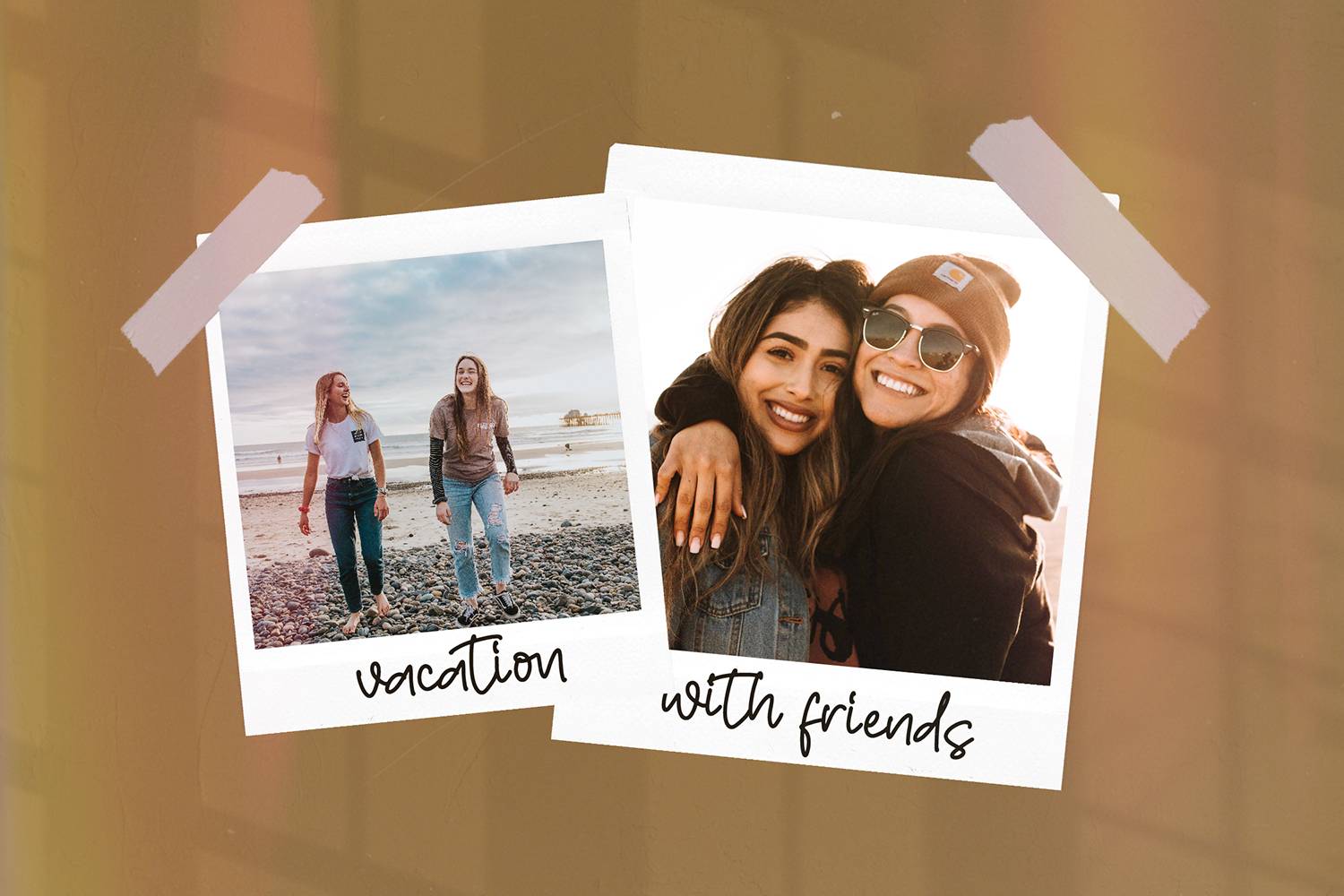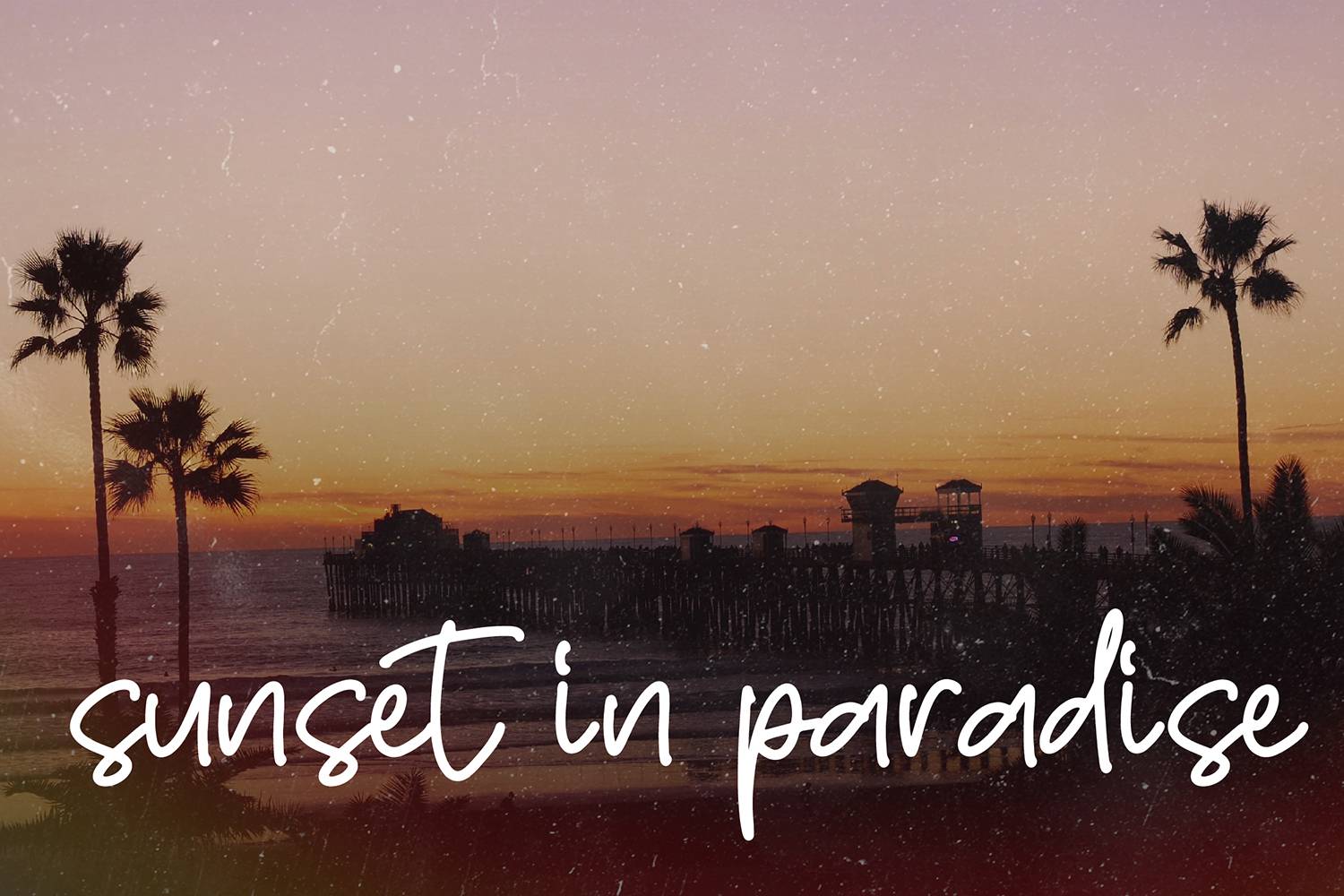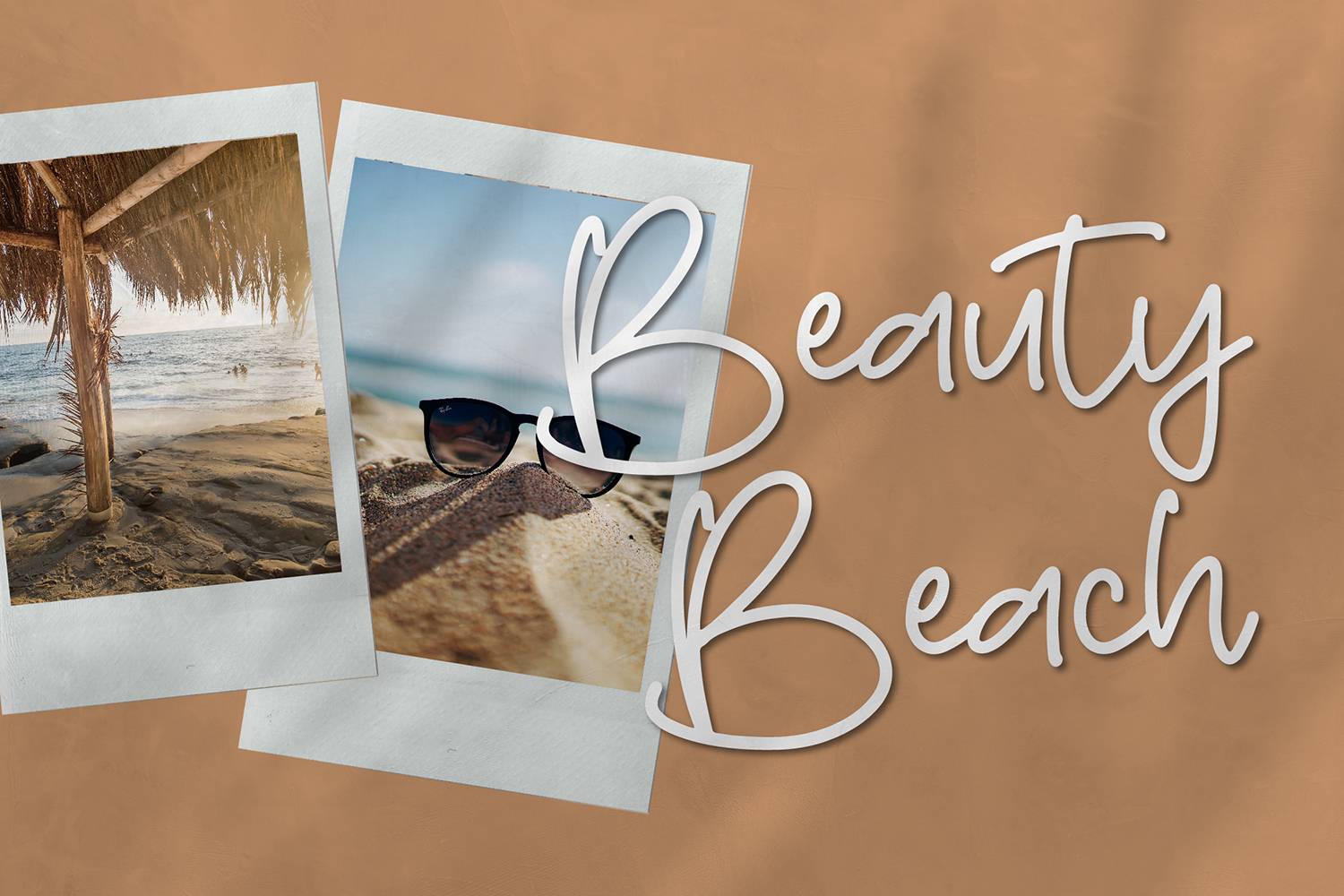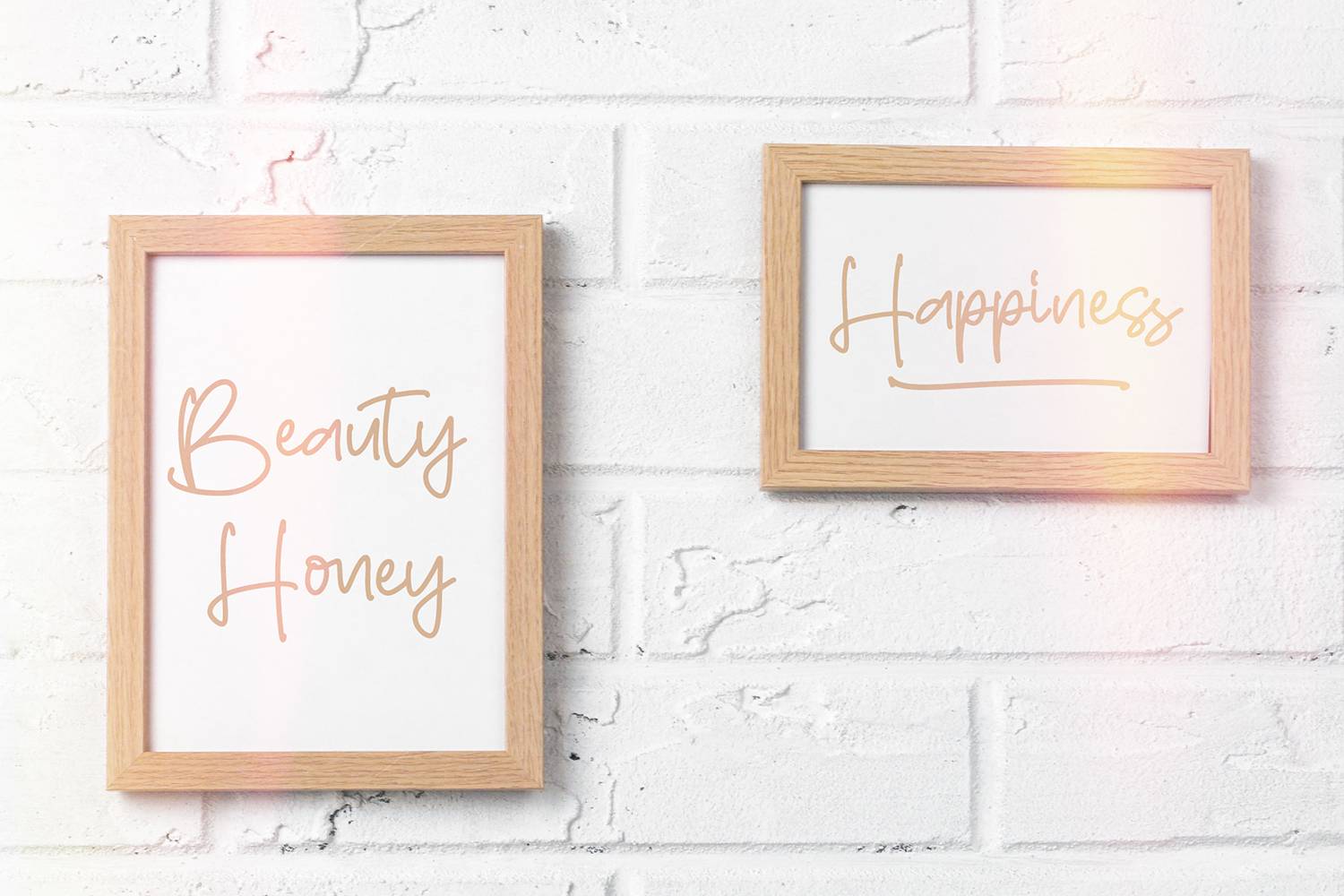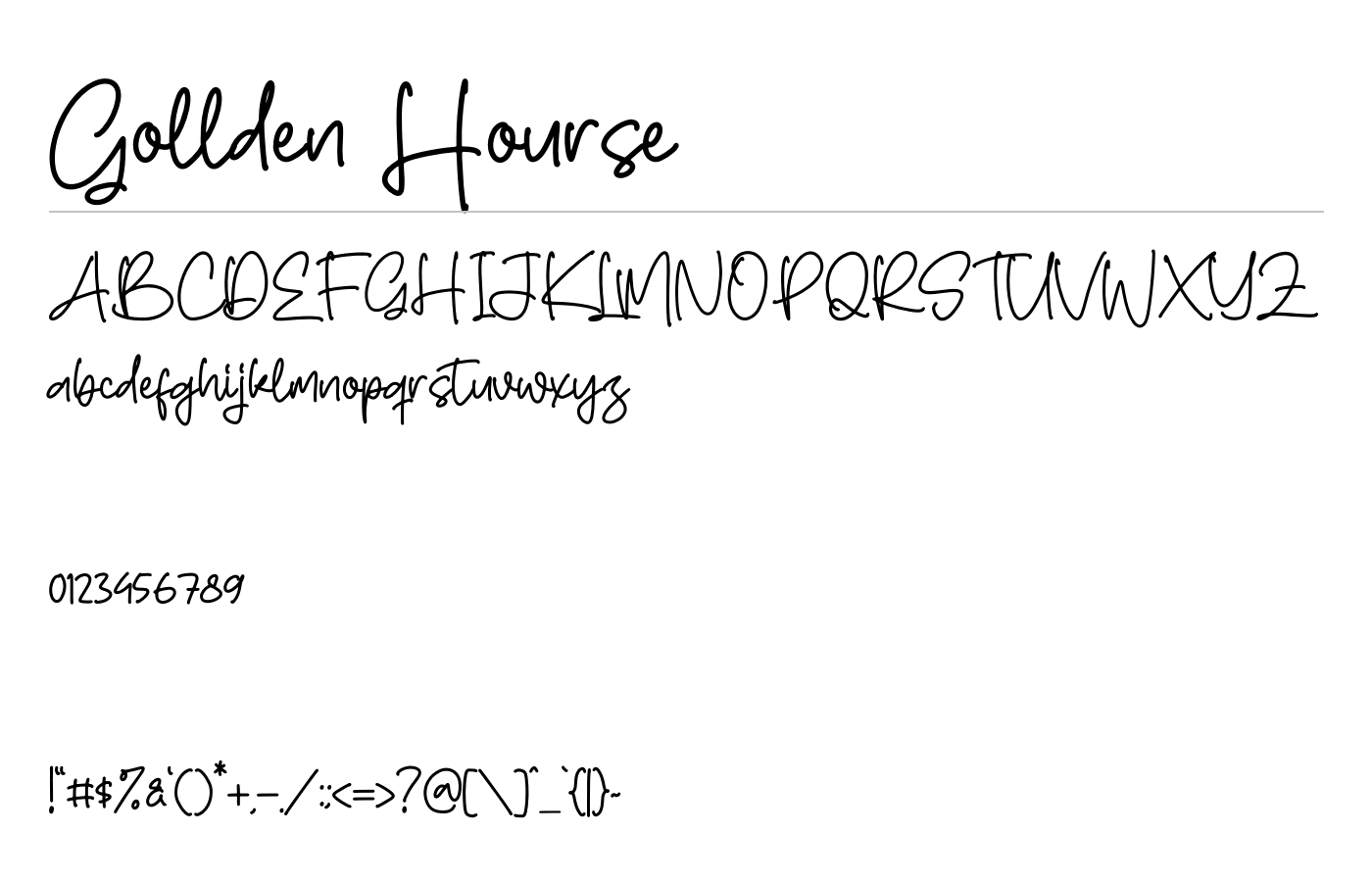
Gollden Hourse is a playful and casual handwritten font with a light, delicate stroke that mimics natural penmanship. Its tall, narrow letterforms and flowing connections create an inviting, informal feel, making it perfect for personal branding, creative projects, and relaxed editorial designs. This font works especially well where a friendly and approachable vibe is desired, such as invitations, social media graphics, or lifestyle blogs.
Gollden Hourse Font
About Gollden Hourse Font